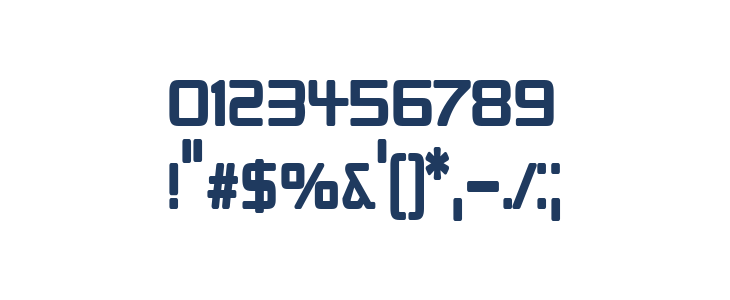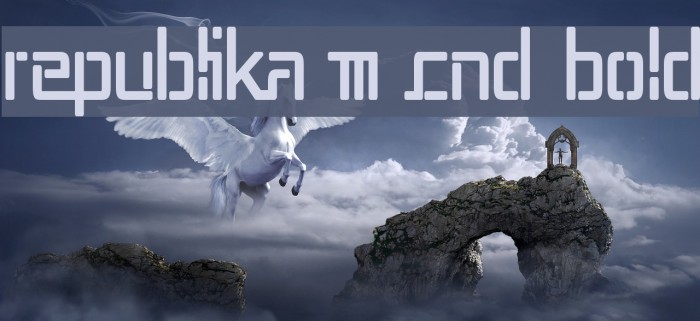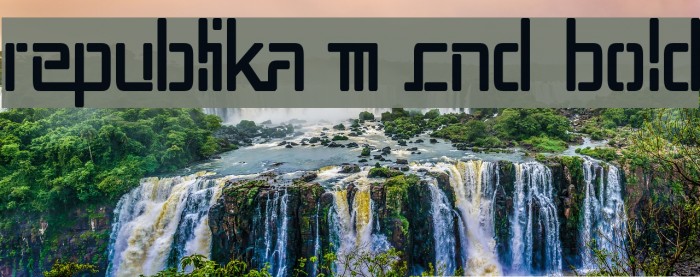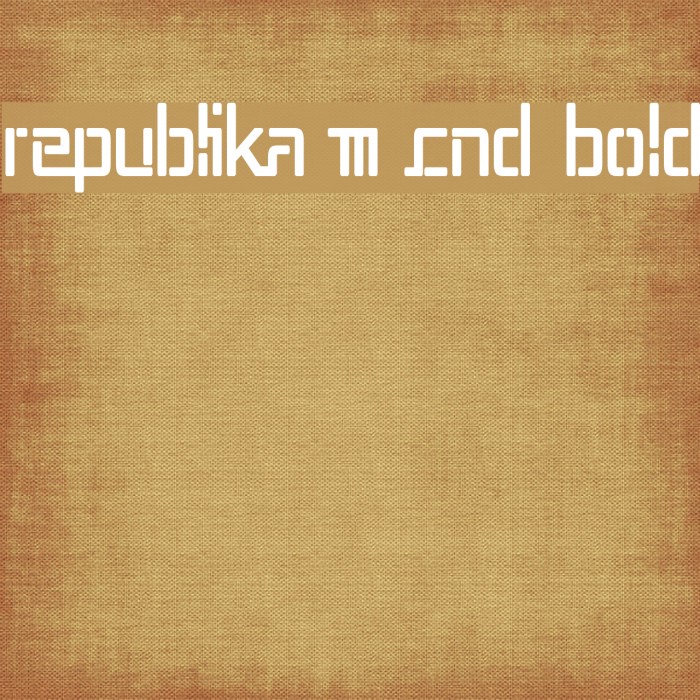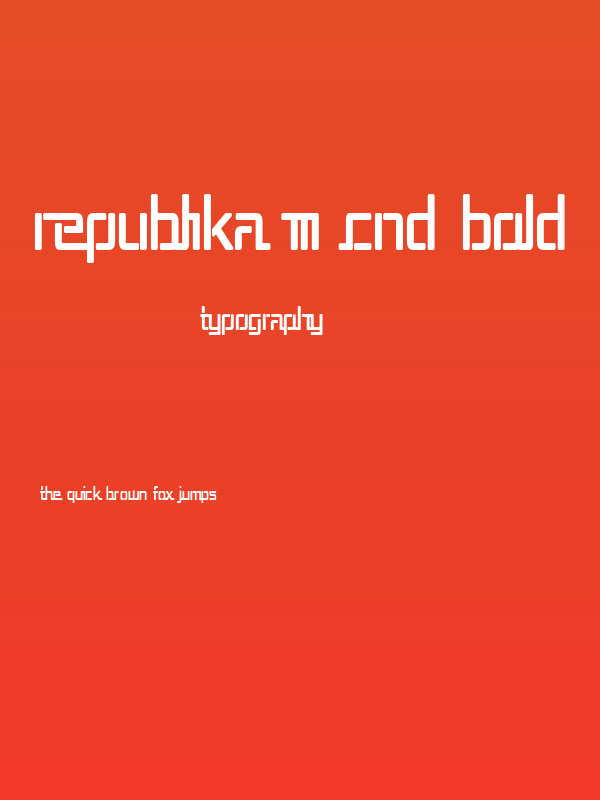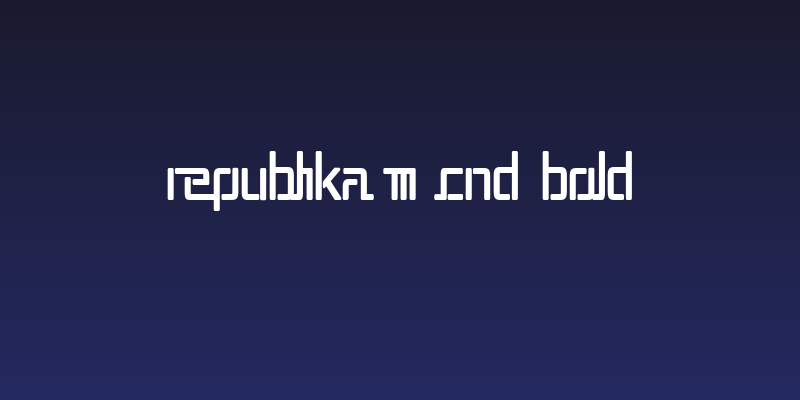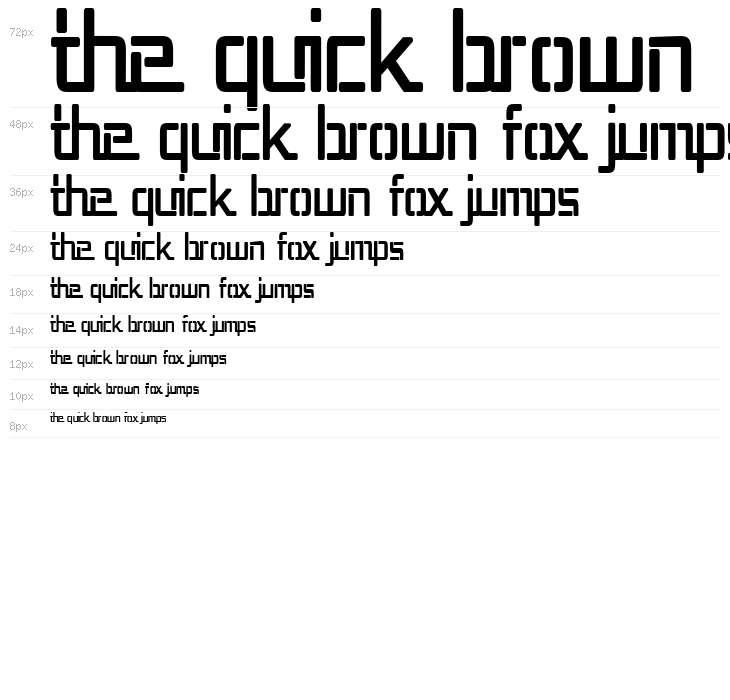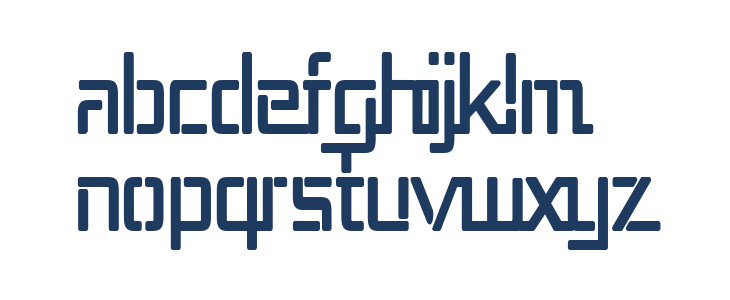
Republika III Cnd Bold Font
Republika III Cnd Bold Description
This font features a bold, geometric design with a condensed structure, giving it a modern and futuristic appearance. The characters are constructed with straight lines and sharp angles, creating a sense of precision and efficiency. The uniform stroke width across all characters contributes to its boldness, while the condensed width allows for space-saving in text layouts. The font includes both uppercase and lowercase letters, numerals, and a variety of special characters, making it versatile for different design needs. Its distinct style is suitable for projects that require a strong visual impact.
| Proposed Projects | Ideal for technology branding, modern posters, futuristic designs, and digital interfaces. |